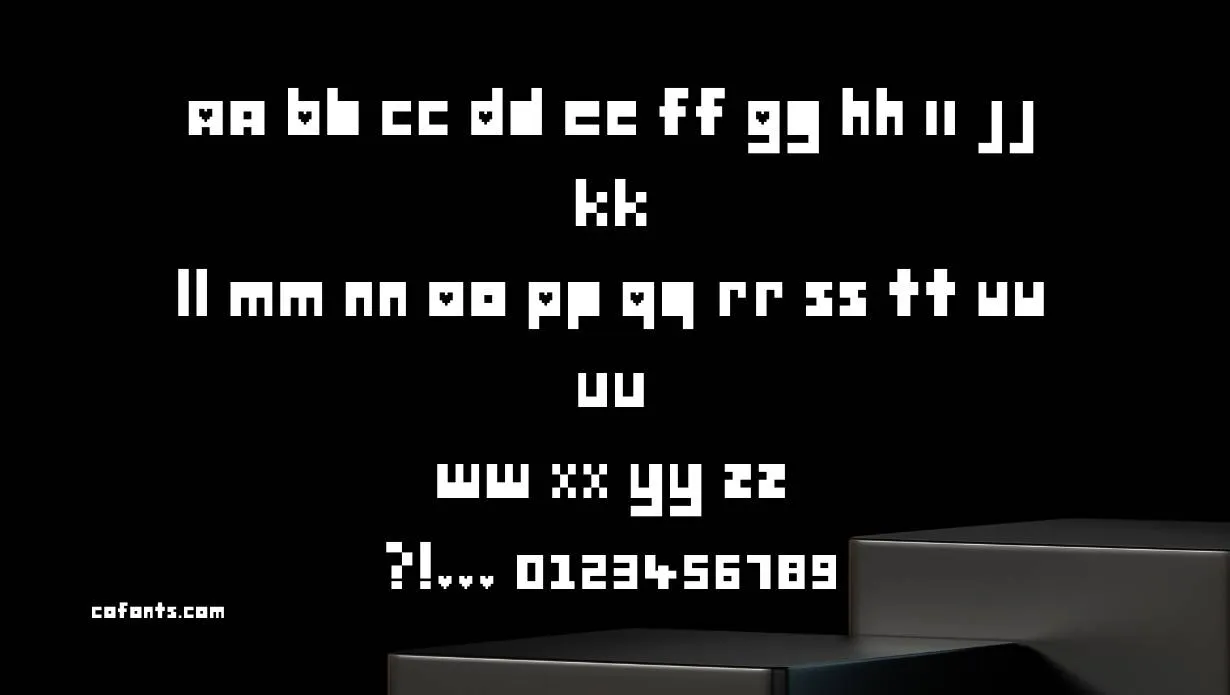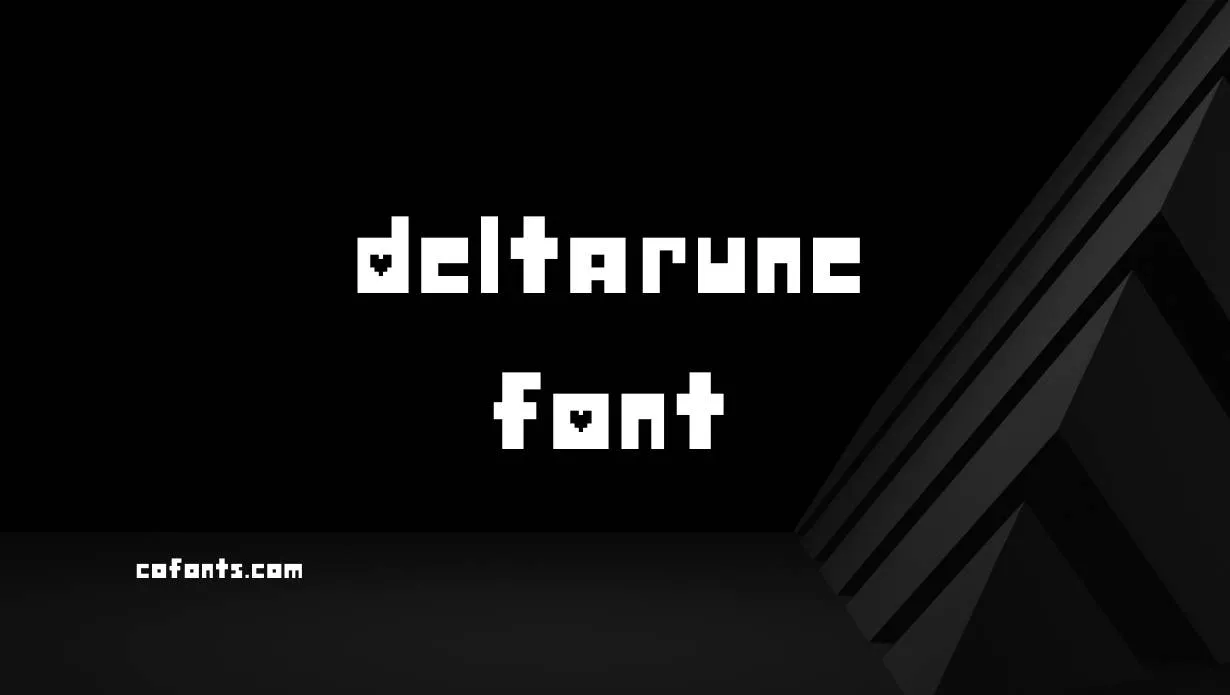
Here, we present a stylish typeface known as Deltarune Font. This typeface belongs to the Techno family and was developed by Retro Gaming. This awesome font has a unique retro-futuristic design that will give your text an original look.
It is available in two styles, Regular and Italic. This stunning font family includes three different font weights: Light, Regular, and Bold. Each weight comes with its own set of uppercase and lowercase characters, as well as a range of punctuation marks and symbols. This typeface is not included in google fonts. Its copy and paste function is very classic. You can also use coreldraw font which is closest to this font family.
The Light weight is perfect for headlines and short texts, while the Regular and Bold weights are ideal for larger blocks of text. Another facility of this typeface is its online generator tool which is useful for all designs.
Usage of Deltarune Font
Because of its classic style, this typeface is used for many plans like invitations, social media posts, gaming, movie posters, product packaging, labels, and much more. Many organizations also used this family for their branding and advertising purposes. If it is your desire to get the best response from all of your audience then put square font with the pairing of this family.
Where we can use Deltarune Font?
This family is suitable for many purposes like invitations, social media posts, gaming, movie posters, product packaging, labels, and much more.
Can I use Deltarune Font for web designs?
Yes, this typeface is best and perfect for all web design projects. It will give a more classic look to your website.